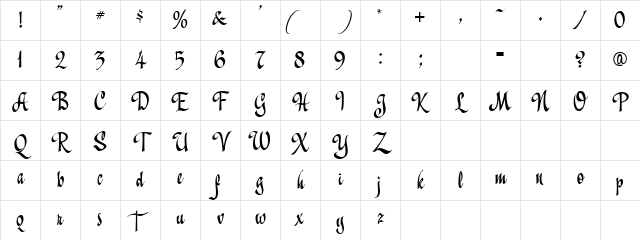
AL Playbook Regular
Design Context for AL Playbook
AL Playbook is a composed and adaptable typeface that performs quietly and consistently across a wide range of design contexts.